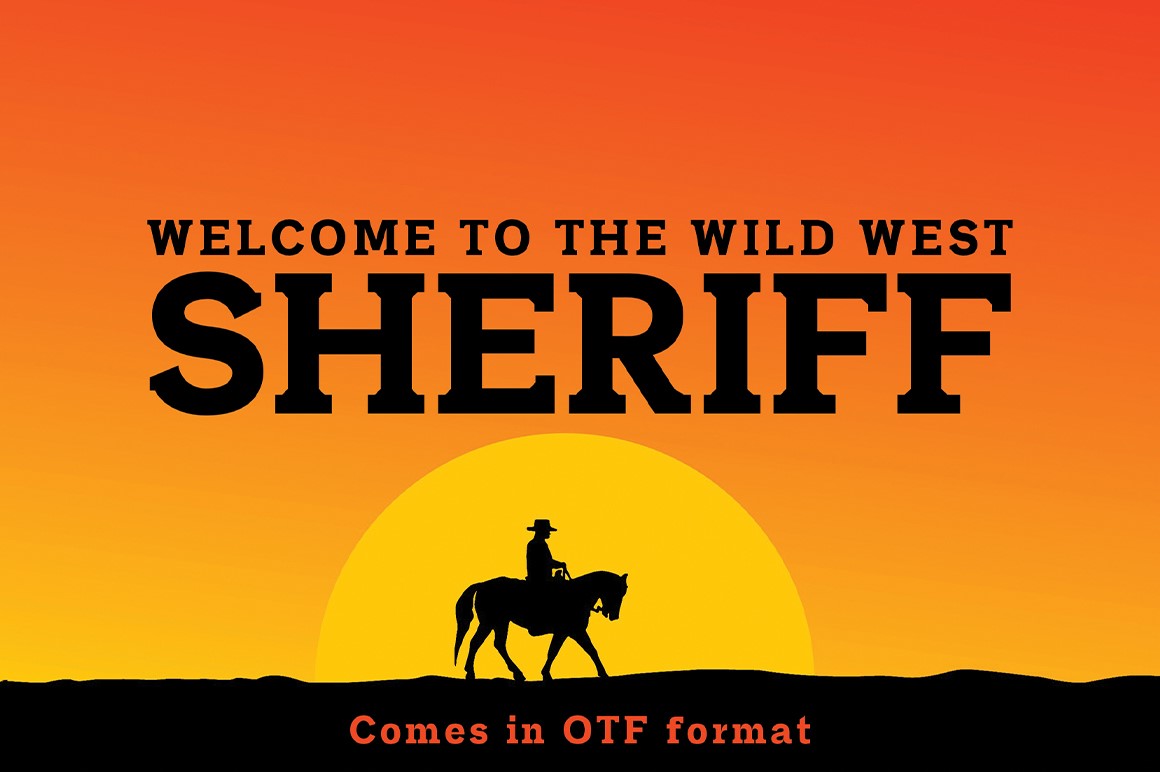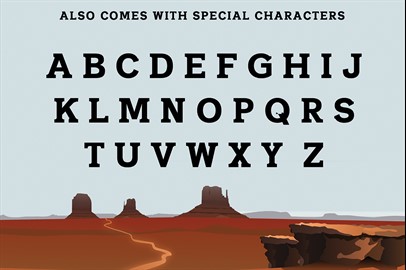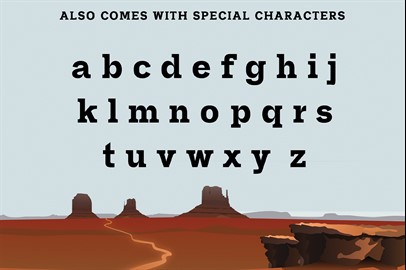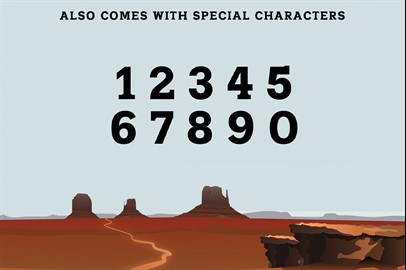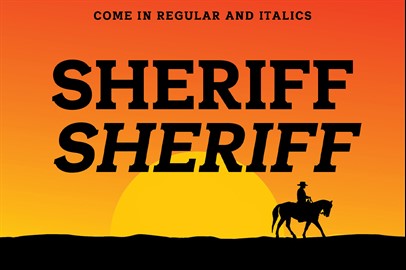
SHERIFF Typeface: A Font of the Wild West
A typeface for those who love the wild west. It's absolutely perfect for logos, titles, invitations, and more!
SHERIFF
is a perfect font to have in your design arsenal!